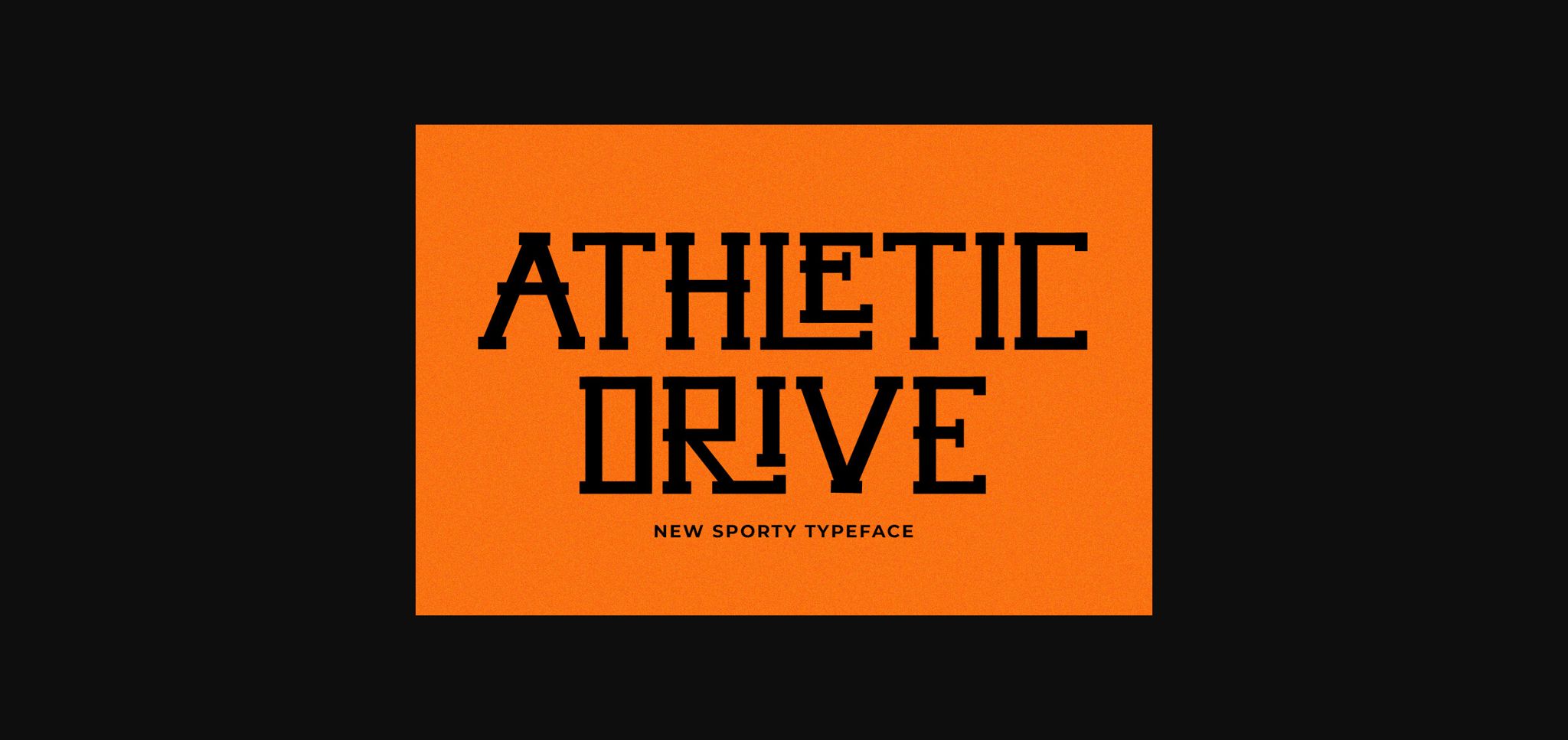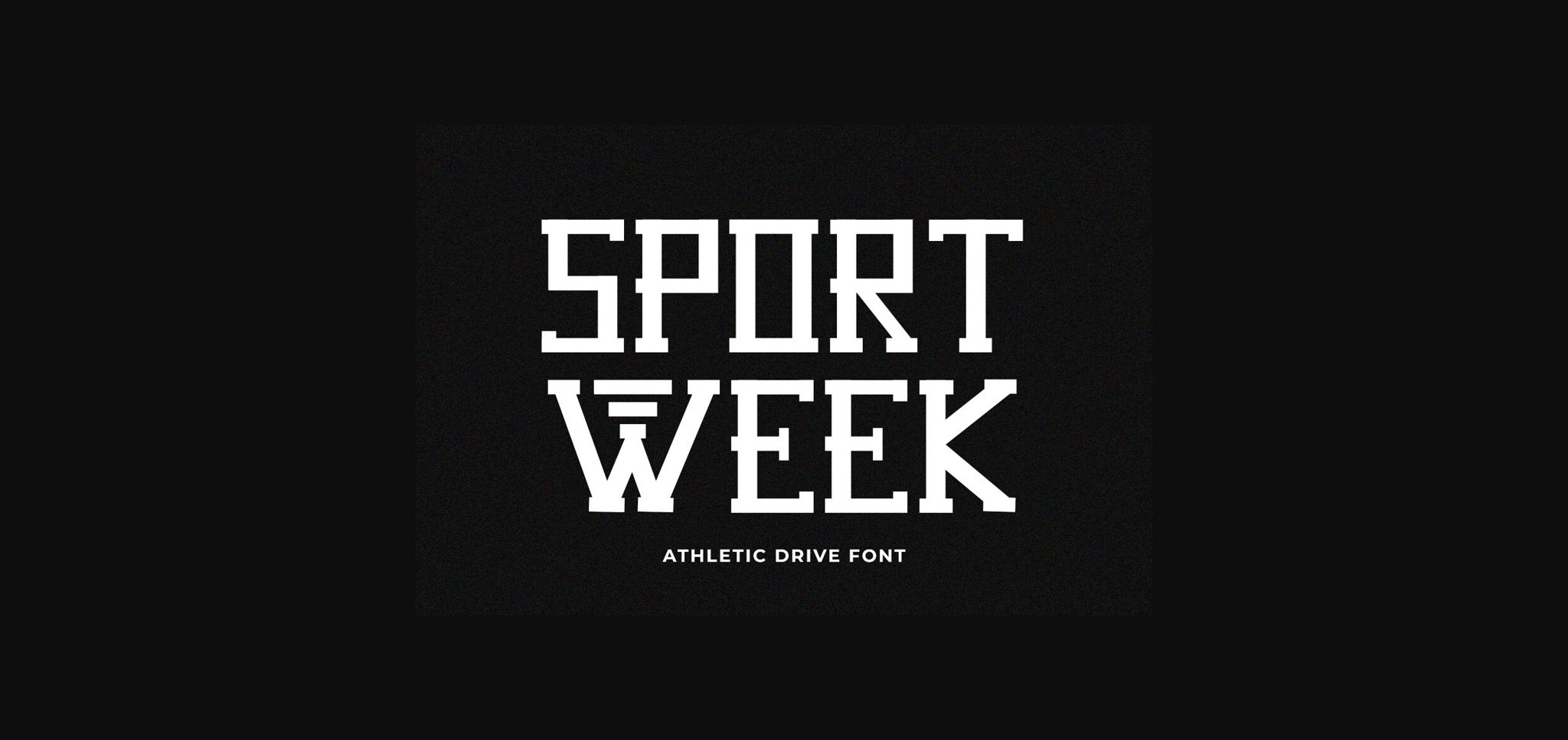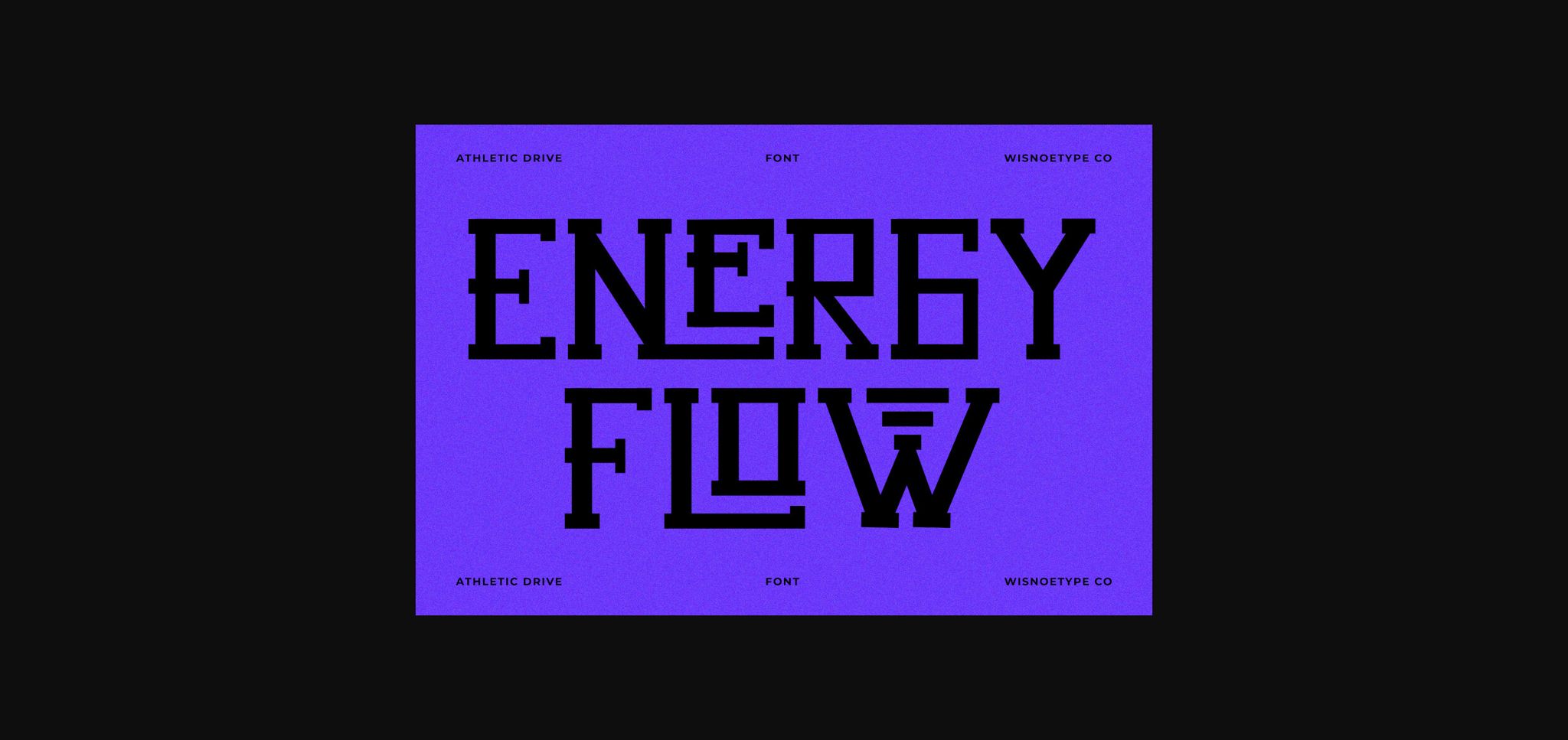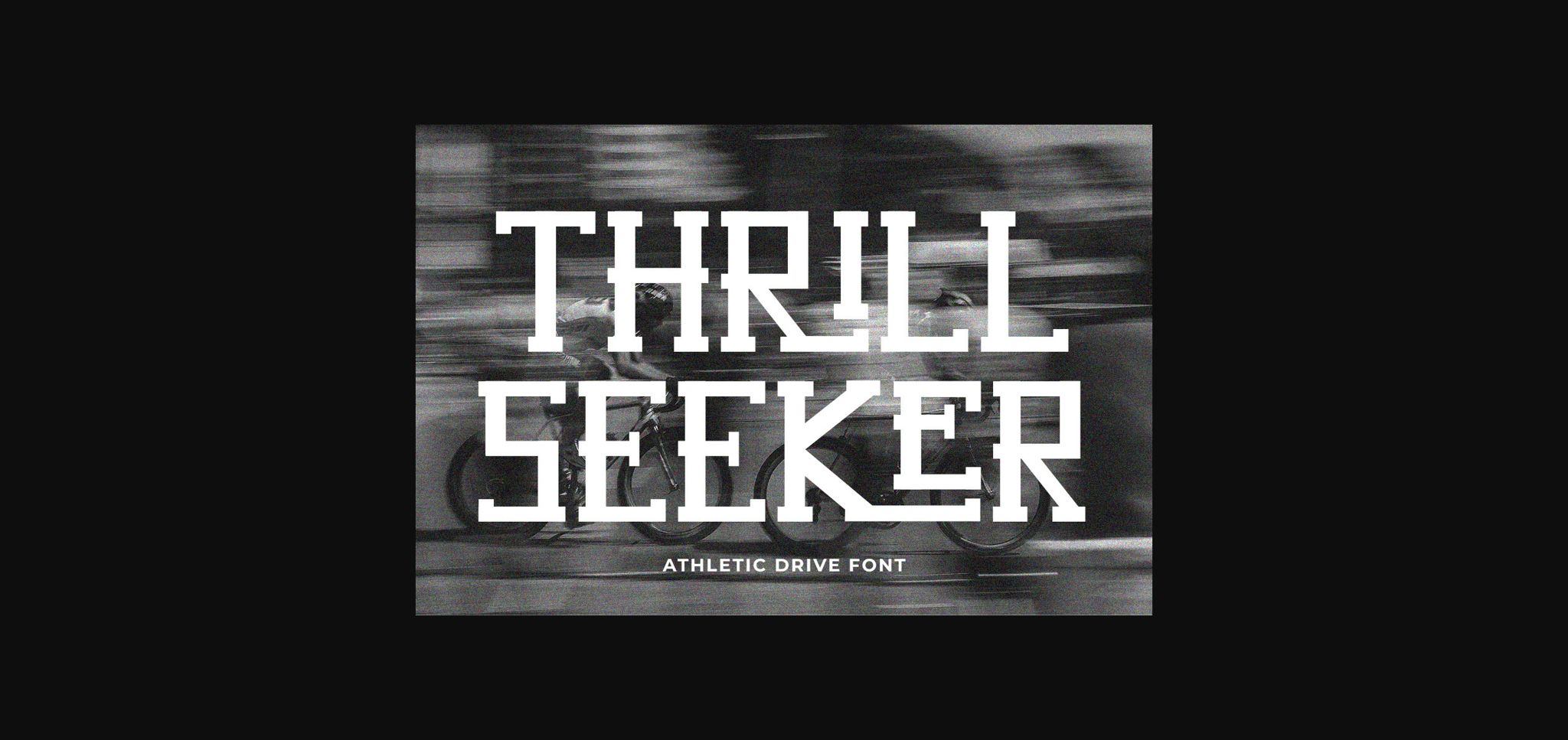
About Athletic Drive Font
Athletic Drive is a type of serif handwriting with a modern style with an automotive sticker style driver pattern combined with lots of ligatures so it looks elegant, this font is suitable for stickers, posters, clothing screen printing or can be used as needed.